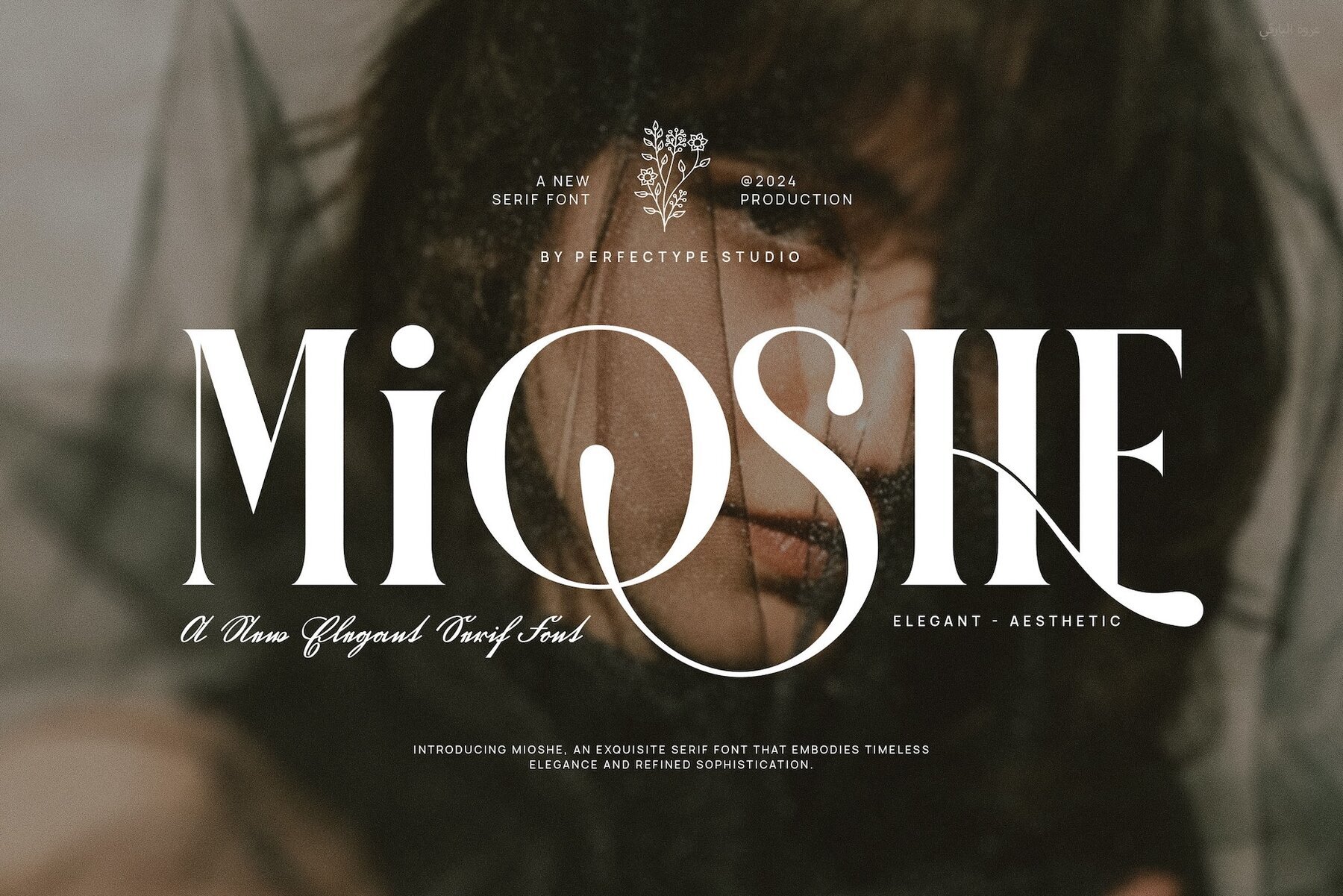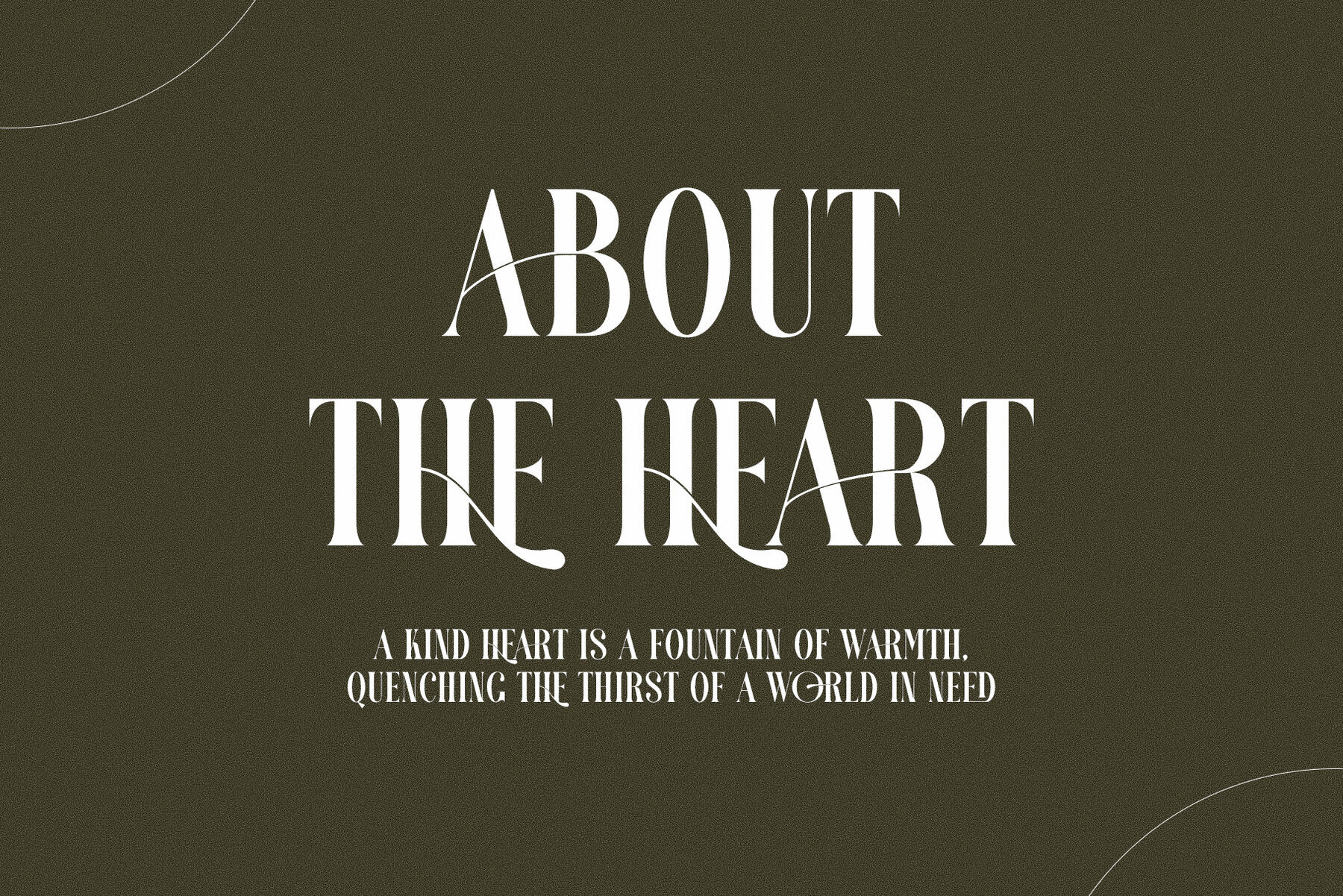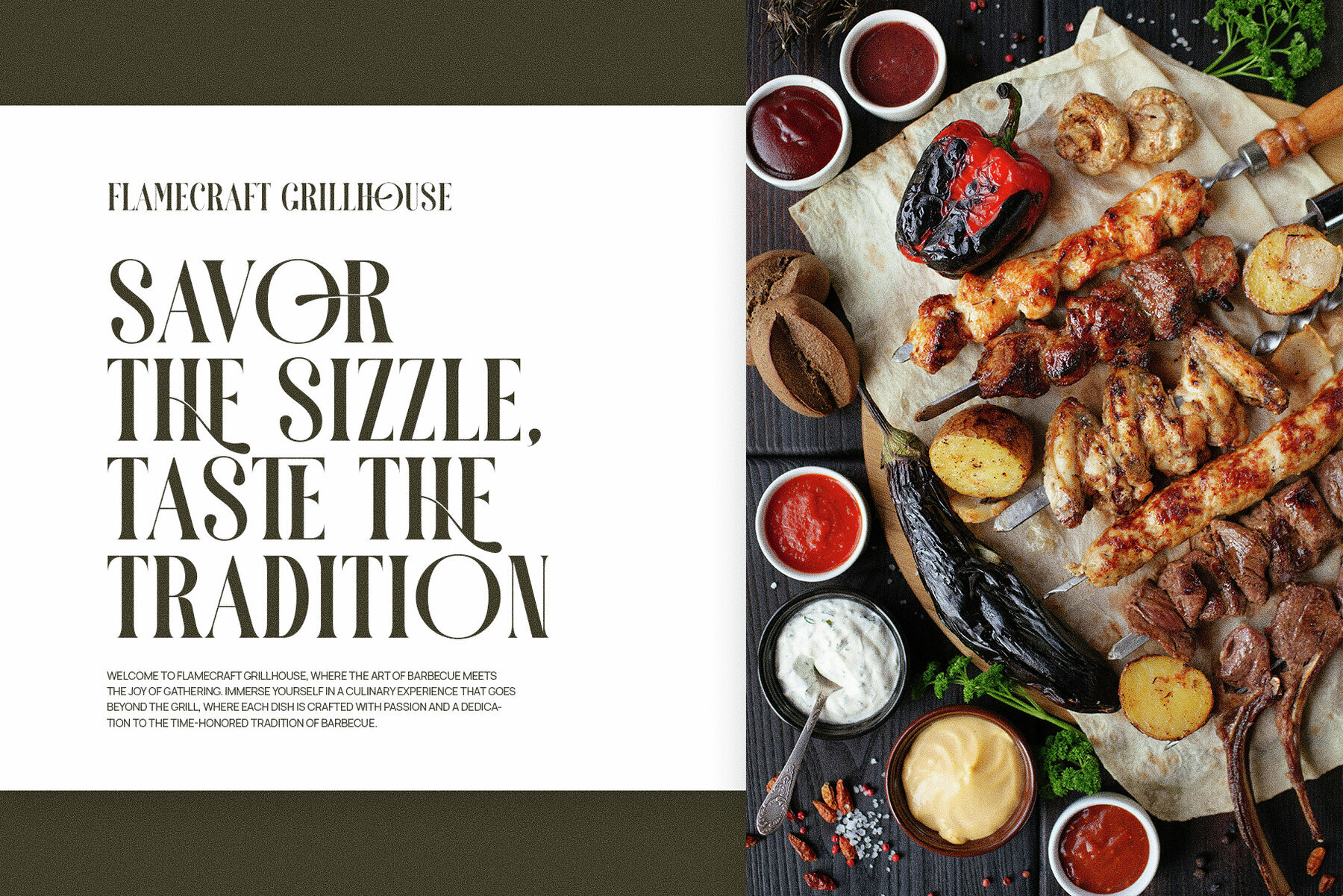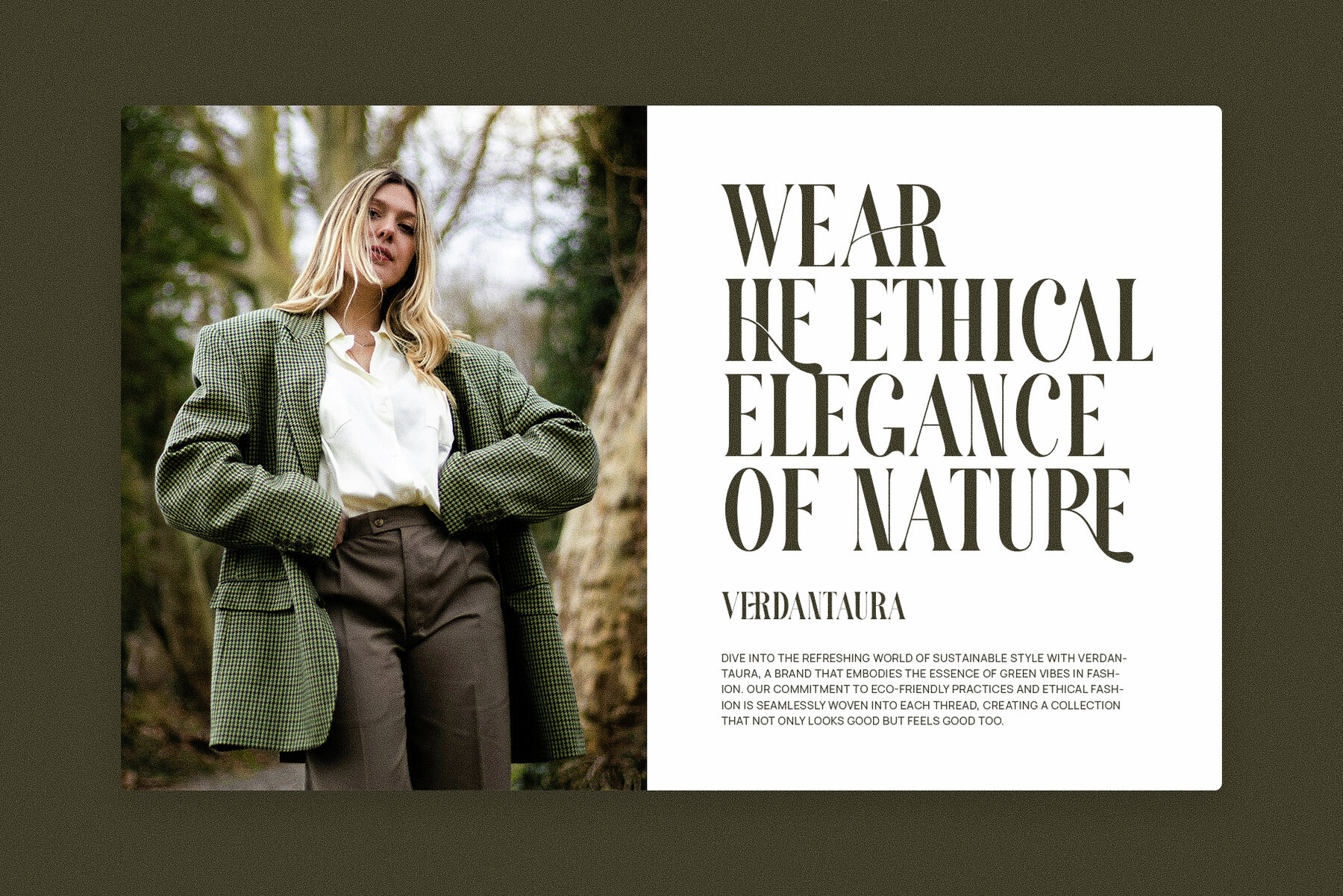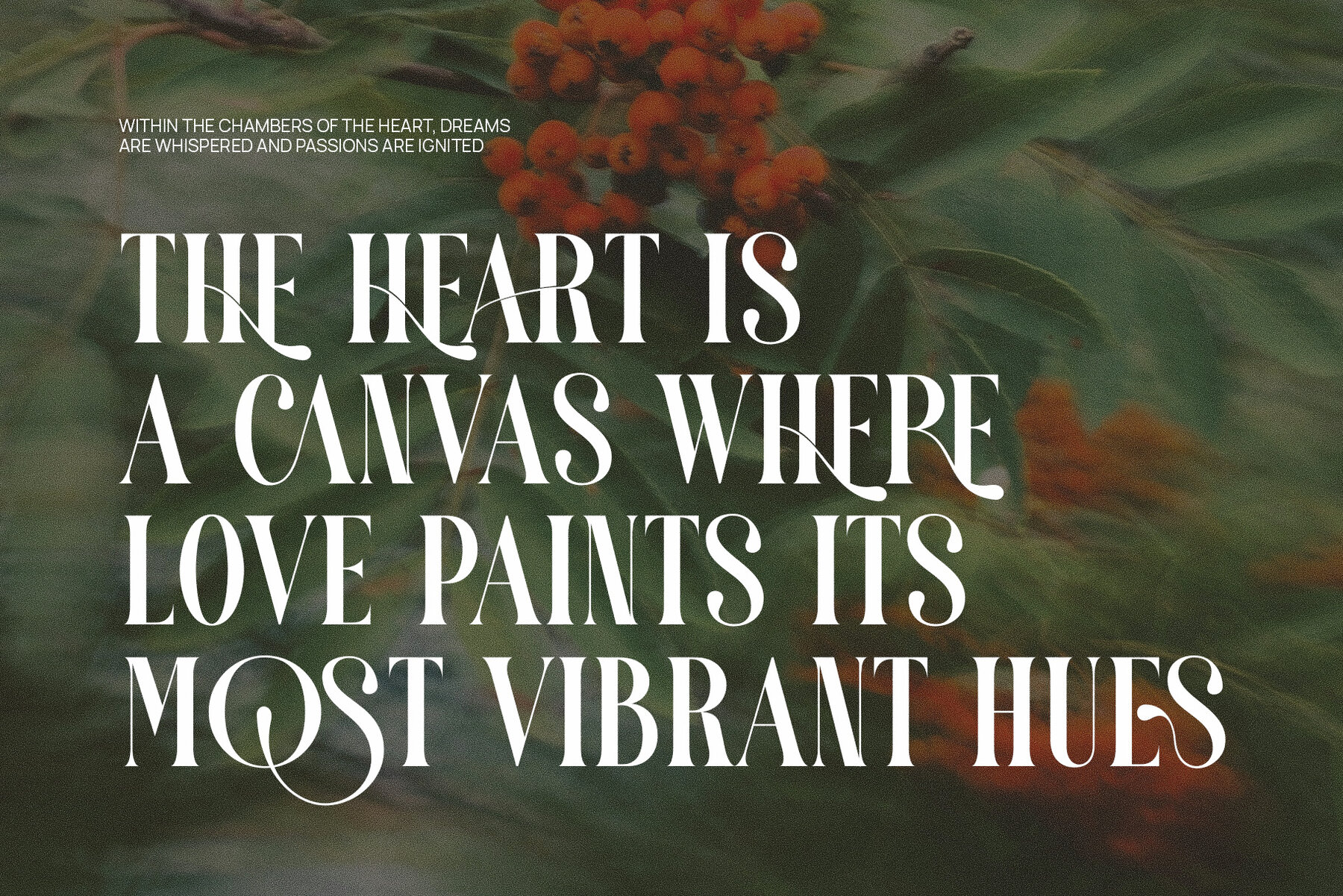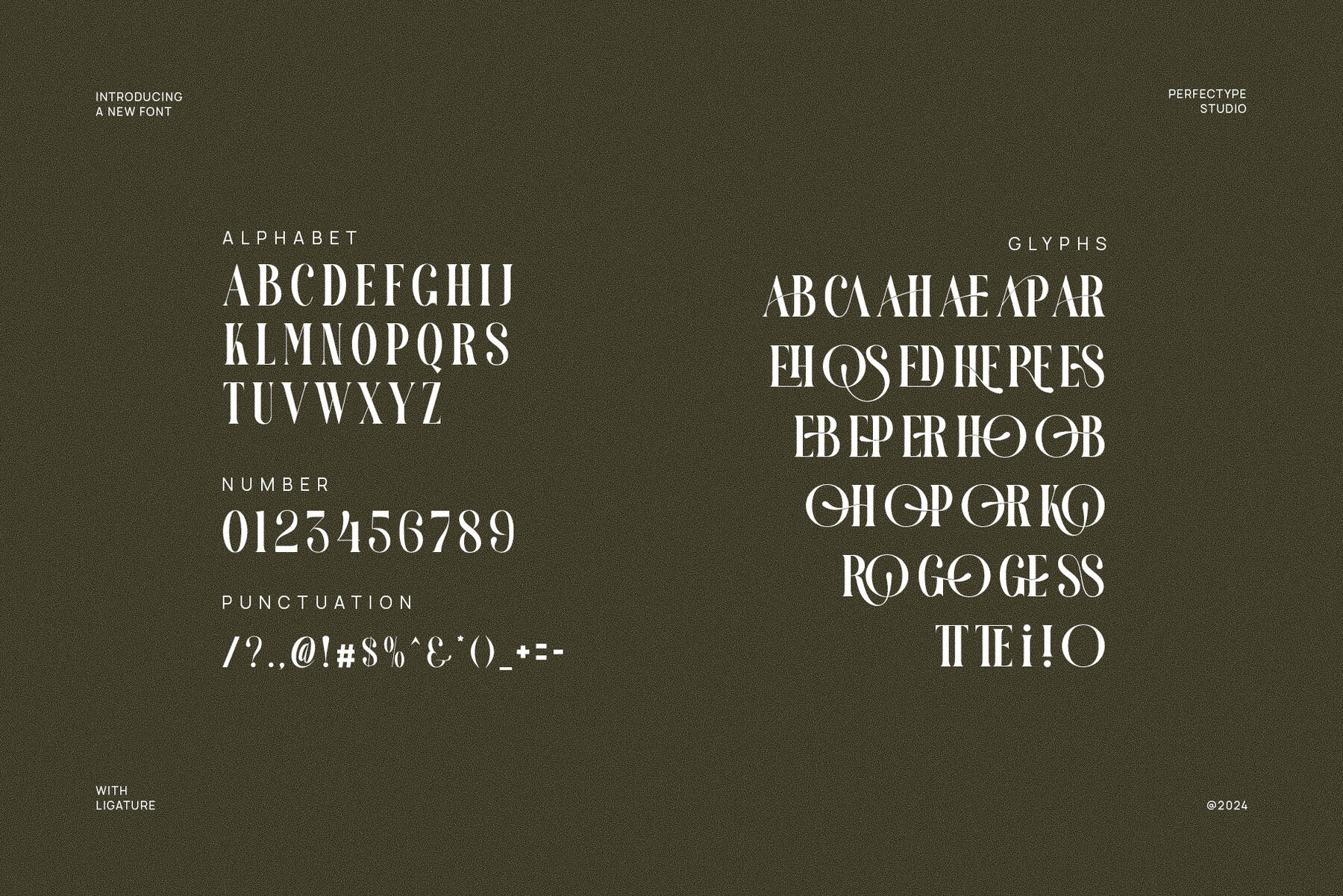
Mioshe Font
Mioshe
Mioshe Elegant Serif Font is a refined typeface that seamlessly merges modern sophistication with timeless elegance. Characterized by its unique and graceful letterforms, Mioshe injects luxury and refinement into any design project. Its elegant serifs and meticulously crafted shapes provide a distinctive, upscale look, while its thoughtfully designed ligatures and alternate characters offer the flexibility for fluid, customized typography. Ideal for high-end branding, Mioshe is perfectly suited for logos, visual identities, and product packaging. Its versatility ensures suitability for both large headlines and smaller body text, maintaining readability without compromising style.
Designed for industries like fashion, luxury goods, food, lifestyle, and boutique brands, Mioshe offers a blend of modernity and elegance that is essential for these sectors. The font's timeless appeal ensures it performs beautifully across both print and digital media, maintaining consistency and visual impact across various platforms. Its distinctive letterforms, smooth ligatures, and sophisticated alternate features make Mioshe a must-have for designers aiming to create memorable, high-end branding. Whether for a logo, website, or advertisement, Mioshe leaves a lasting impression with its refined elegance and luxurious charm, making your designs truly stand out.